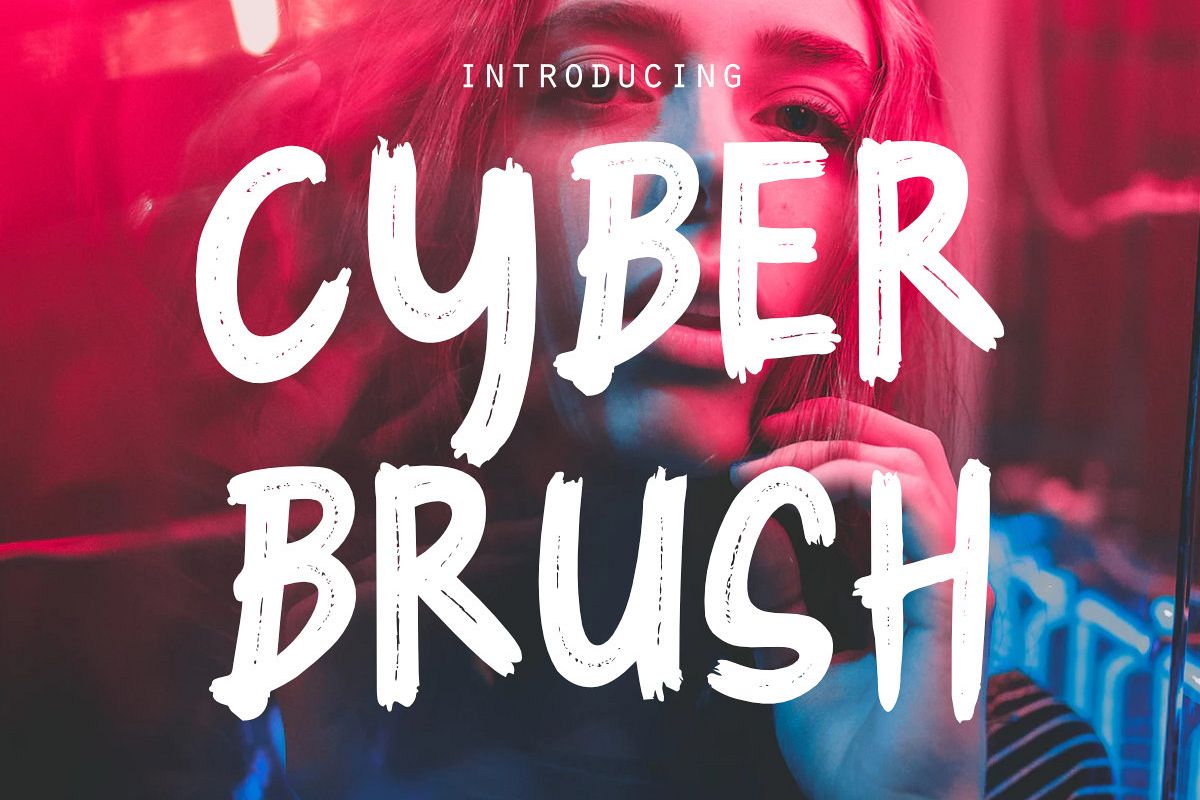
Cyber Brush
Cyber Brush font is a Natural Brush Font. It has a elegant, classy look. It’s a great font for fashion, apparel projects, signature, album cover, logo, branding, magazine, social media, & advertisements, but also works great for other projects.